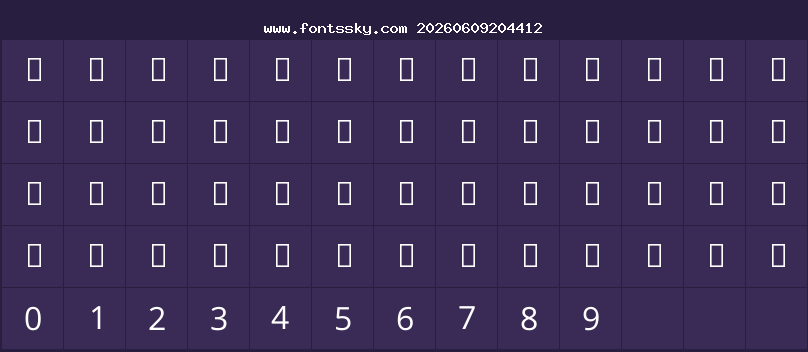
Noto Sans Sinhala UI Preview
• Font Name: Noto Sans Sinhala UI
• Full Font Name: Noto Sans Sinhala UI Regular
• Designer: Jelle Bosma - Monotype Design Team
• Manufacturer: Monotype Imaging Inc.
• Description: Designed by Monotype design team.
About Noto Sans Sinhala UI.ttf
Noto Sans Sinhala UI.ttf is a modern, elegant sans-serif font designed for ultimate readability and visual harmony. Perfect for branding, headlines, web design, and print materials.